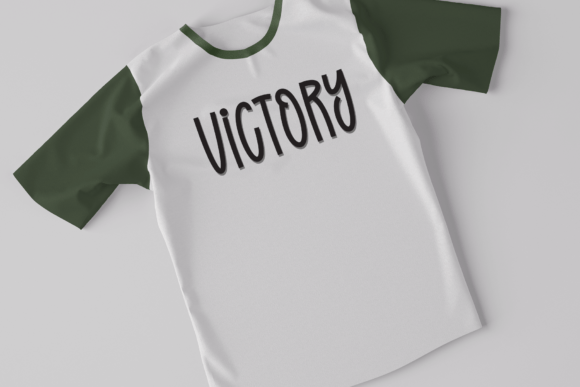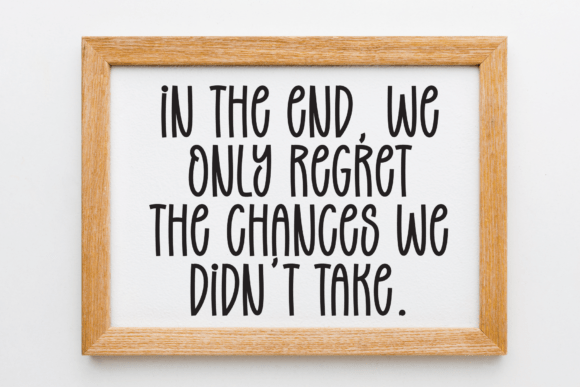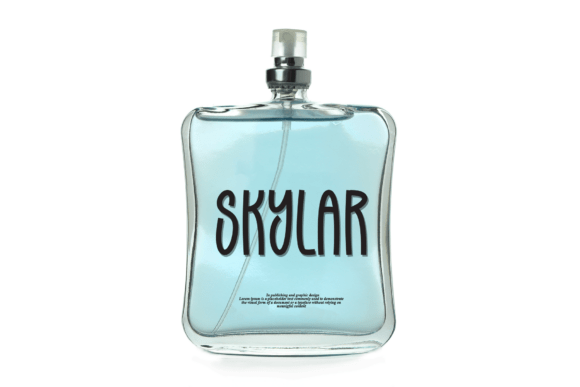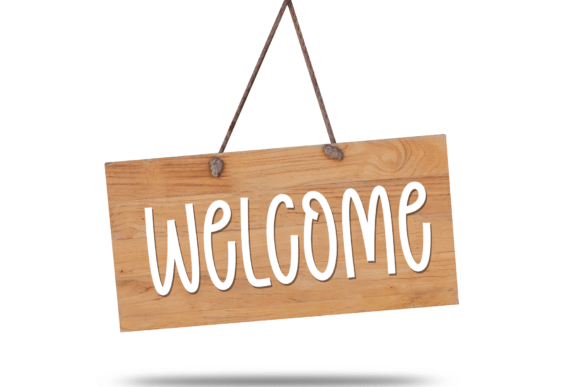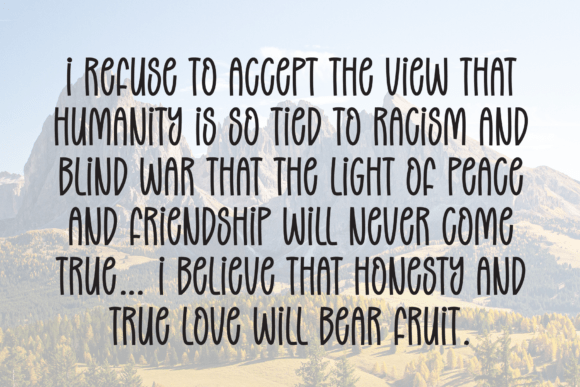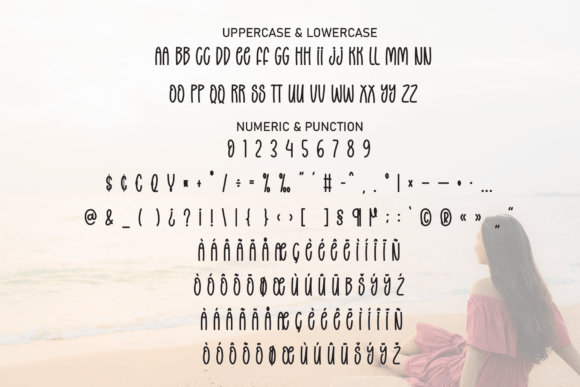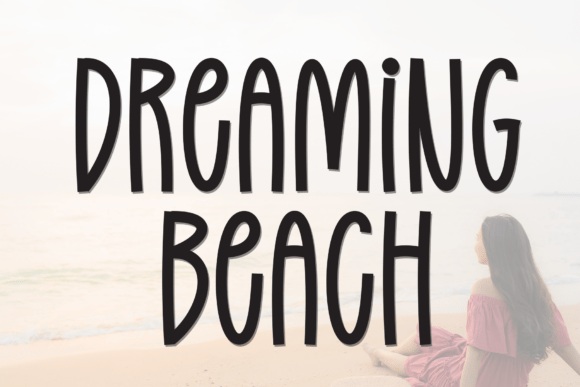
Dreaming Beach Font: The Perfect Blend of Simplicity and Friendliness
Are you tired of using fonts that are too formal or too dull? Look no further than the Dreaming Beach Font, a casual and neat display font that combines simplicity with a friendly, approachable vibe. This beautiful font is perfect for designers and crafters who want to add a warm and inviting touch to their designs.
What Makes Dreaming Beach Font So Special?
Dreaming Beach Font features clean lines, balanced letterforms, and subtle rounded edges, making it a perfect capture of modern handwritten typography with a polished finish. The font’s simplicity and friendliness make it ideal for a wide range of design projects, from branding and headlines to packaging and digital content.
Key Characteristics of Dreaming Beach Font
- Clean Lines: The font features clean and crisp lines that give it a modern and sleek look.
- Balanced Letterforms: The letterforms are carefully crafted to be balanced and harmonious, making the font easy to read and visually appealing.
- Subtle Rounded Edges: The subtle rounded edges add a touch of friendliness and approachability to the font, making it perfect for designs that require a warm and inviting tone.
Uses of Dreaming Beach Font
Dreaming Beach Font is a versatile font that can be used in a variety of design projects, including:
- Branding: Use Dreaming Beach Font to create a unique and memorable brand identity that stands out from the crowd.
- Headlines: The font’s clean lines and balanced letterforms make it perfect for headlines that require a clear and concise message.
- Packaging: Add a touch of warmth and friendliness to your packaging designs with Dreaming Beach Font.
- Digital Content: The font’s crisp structure and versatile style make it ideal for digital content, such as blog posts, social media graphics, and website headers.
Benefits of Using Dreaming Beach Font
Using Dreaming Beach Font in your designs offers several benefits, including:
- Clarity: The font’s clean lines and balanced letterforms make it easy to read and understand.
- Charm: The subtle rounded edges and friendly vibe of the font add a touch of charm and personality to your designs.
- Versatility: Dreaming Beach Font can be used in a variety of design projects, making it a great addition to your font library.
Tips for Using Dreaming Beach Font
Here are some tips for using Dreaming Beach Font in your designs:
- Pair it with other fonts: Experiment with pairing Dreaming Beach Font with other fonts to create a unique and visually appealing combination.
- Use it in large sizes: The font’s clean lines and balanced letterforms make it perfect for large sizes, such as headlines and titles.
- Experiment with colors: Try using different colors to add depth and interest to your designs.
Dreaming Beach Font is a beautiful and versatile font that is perfect for designers and crafters who want to add a warm and inviting touch to their designs. With its clean lines, balanced letterforms, and subtle rounded edges, it captures the essence of modern handwritten typography with a polished finish. Whether you’re working on a branding project, creating headlines, or designing packaging, Dreaming Beach Font is a great choice.